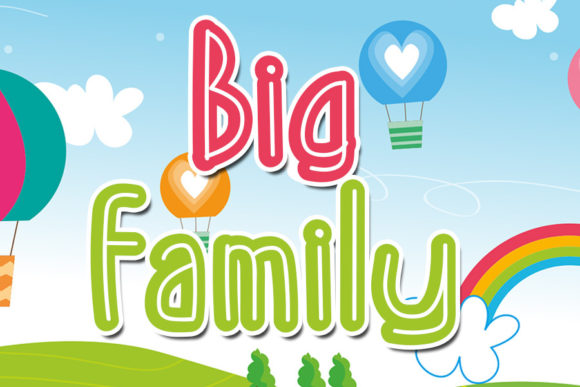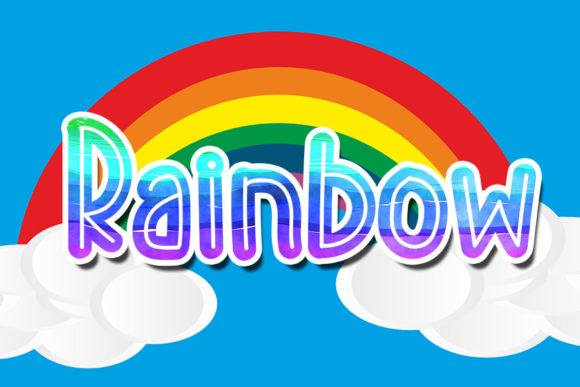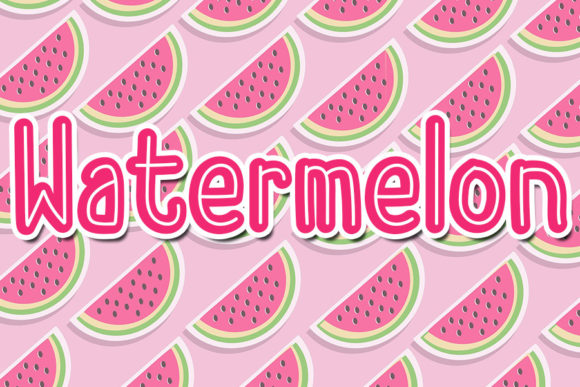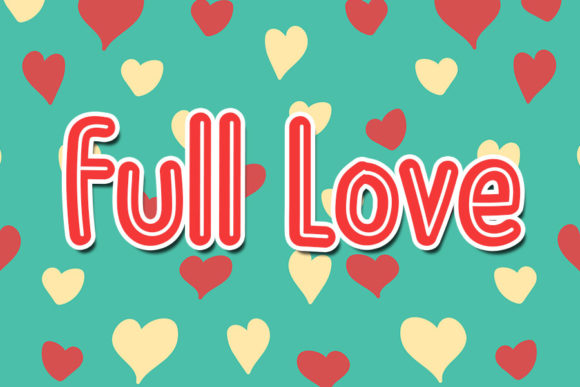
There’s something magical about stumbling upon the perfect font for a project – the excitement, the thrill of watching your design come to life. It’s moments like these that remind us why we love being designers. And, trust us, you’ll feel the same way when you discover the Homesweet Font.
This delightful display font is the perfect addition to any design project. With its neat, simple, and jolly aesthetic, Homesweet Font adds a touch of whimsy and playfulness to your work. Whether you’re creating a logo, a poster, or a social media graphic, this font is sure to bring a smile to your face and a sparkle to your design.
As a designer, you know that the right font can make all the difference. Homesweet Font is a valuable asset to any design toolkit, offering a unique and eye-catching way to express your creativity. So, why not give it a try and see the magic happen for yourself?
Homesweet Font Key Features
- Unique Characteristics: Homesweet Font features a unique blend of modern and classic elements, with subtle curves and rounded edges, making it perfect for a variety of design applications.
Homesweet Font Review
I recently had the chance to work with the “Homesweet Font” and I must say, it’s a lovely addition to any design project. Here are some of the things that I think work well: ✨
- Cozy feel: Homesweet Font has a warm, inviting feel to it that’s perfect for projects that need a homey or nostalgic vibe.
- Readability: The font is highly legible, making it easy to read even at smaller sizes.
- Customization options: The font comes with a range of weights and styles, allowing you to customize it to fit your design needs.
However, I did encounter a few limitations: ⚠️
- Limited language support: Homesweet Font may not support all languages, which could be a issue for projects that require multilingual support.
- Not suitable for large bodies of text: Due to its decorative nature, Homesweet Font may not be the best choice for large blocks of text.
Overall, I think Homesweet Font is a great addition to any designer’s toolkit. While it may have some limitations, its unique charm and customization options make it a great choice for projects that need a touch of warmth and personality.
Getting the Most Out of Homesweet Font
Some tips for getting the most out of Homesweet Font include:
- Pairing it with bold or italic styles to create contrast and emphasis.
- Using it in conjunction with other elegant or vintage-inspired fonts.
- Experimenting with different font sizes and colors to achieve a unique look.
Homesweet Font is commonly used in:
- Home decor and furniture design.
- Vintage-inspired advertising and branding.
Alternatives to Homesweet Font
Playfair Display is a luxurious and elegant serif font, ideal for high-end branding, invitations, and magazine headlines. Its classic and sophisticated design makes it a perfect alternative to Homesweet Font for those who want to convey a sense of refinement and sophistication.
Compared to Homesweet Font, Playfair Display has a more ornate and detailed design, making it better suited for formal and elegant applications.